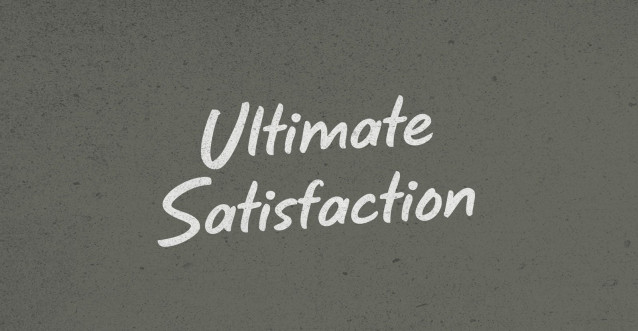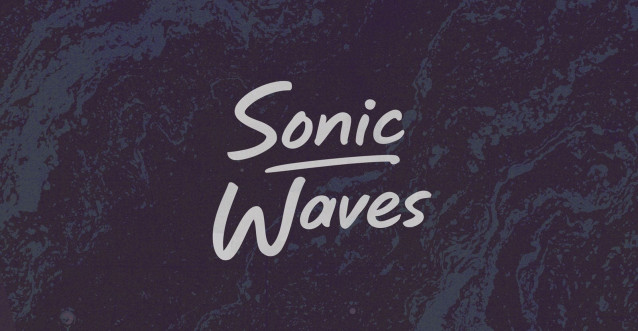
Sonic Waves Font
Sonic Waves Font – Handwritten Brush Marker Font. Plucking the strings of his mystical instrument, the Audion. Fearless determination, a harmonious rebellion against the stifling tranquility. Every strum generated Sonic Waves, unseen ripples in the air, creating symphonic echoes that morphed into the abyss. A flurry of sounds, harmonious and dissonant, melding together to create a grand, turbulent symphony.